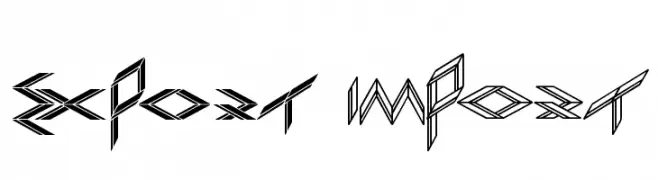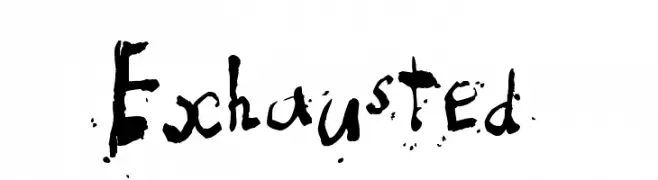
A modern, wide sans-serif font with excellent readability and a clean design.
A rugged, hand-drawn font with a distressed, artistic style.
A bold, playful font with rounded, hand-drawn characters.
A playful, handwritten font with bold, energetic characters.
An elegant, flowing script font with smooth, cursive letterforms.
A lively, cursive font with a natural, handwritten feel.
A fluid and elegant script font with medium contrast and dynamic letterforms.
A bold, textured font with a playful, hand-drawn style.
A glitchy, distorted font with a digital error aesthetic.
A bold, modern sans-serif font with clean, uniform strokes.
A sleek, modern font with thin, elongated letterforms and clean lines.
A modern serif font with elegant, sharp lines and balanced proportions.
A modern, sans-serif font with clean lines and consistent stroke width.
A modern serif font with high contrast and elegant styling.
A modern, bold sans-serif font with geometric shapes and balanced proportions.
A bold, playful font with rounded edges and a friendly appearance.
A dynamic, expressive handwritten font with fluid strokes and natural flow.
A whimsical, cursive font with elegant, flowing strokes.
A bold, decorative font with geometric patterns and angular lines.
A bold, elegant script font with flowing, connected characters and decorative flourishes.
A playful, handwritten font with a casual and dynamic style.
A bold, ornate blackletter font with a medieval, gothic style.
A rugged, distressed slab serif font with a vintage, Wild West feel.
A modern, geometric sans-serif font with tall, narrow letters and consistent stroke widths.
A bold, cracked texture font with a rugged, urban style.
A bold, cracked texture font with a rugged, distressed style.
A bold, brush-style font with dynamic slant and energetic strokes.
A bold, dynamic script font with a brush-like, hand-drawn appearance.
A playful, cursive script font with elegant, flowing strokes.